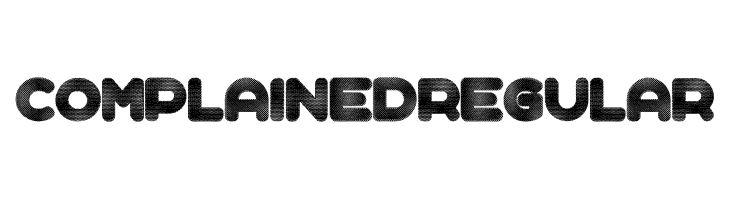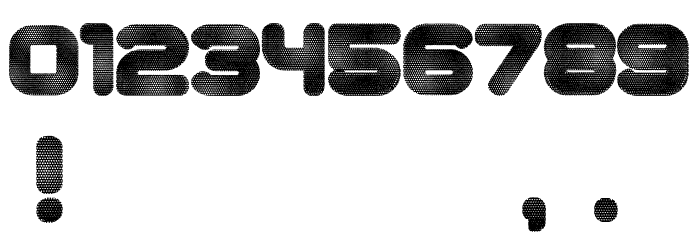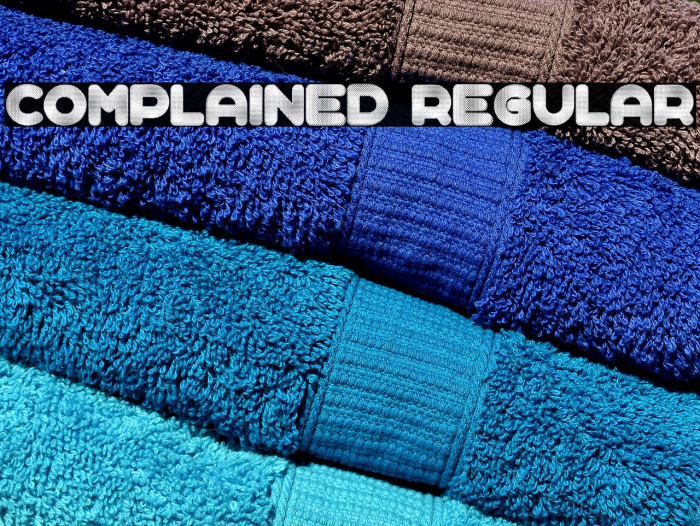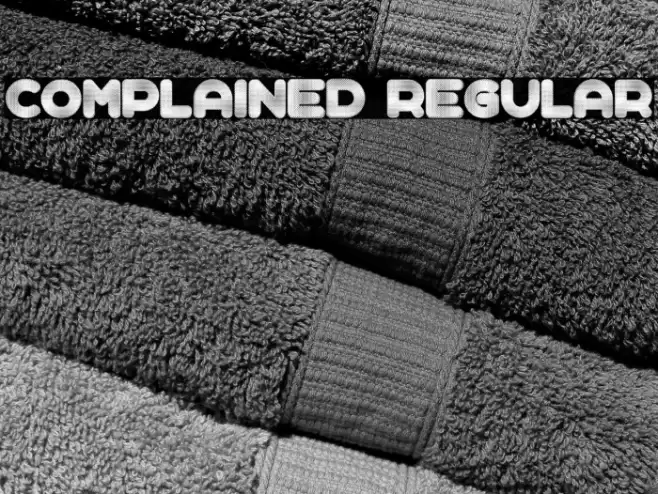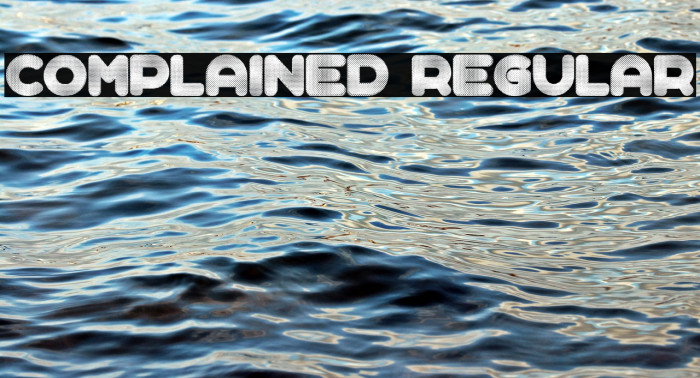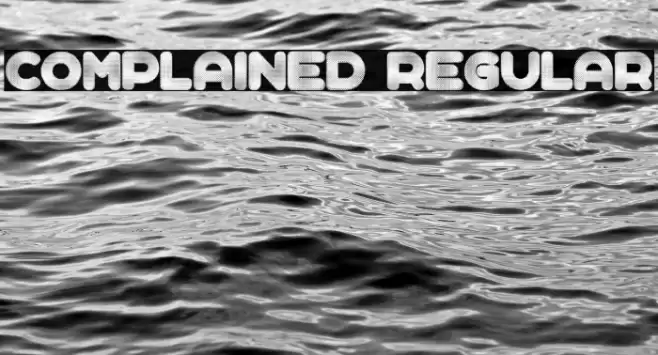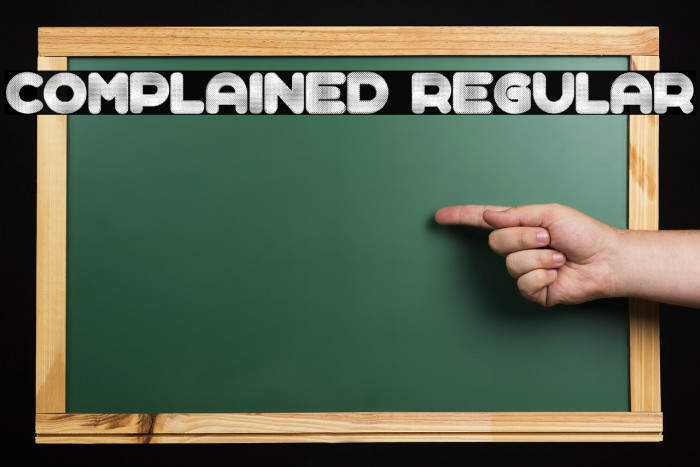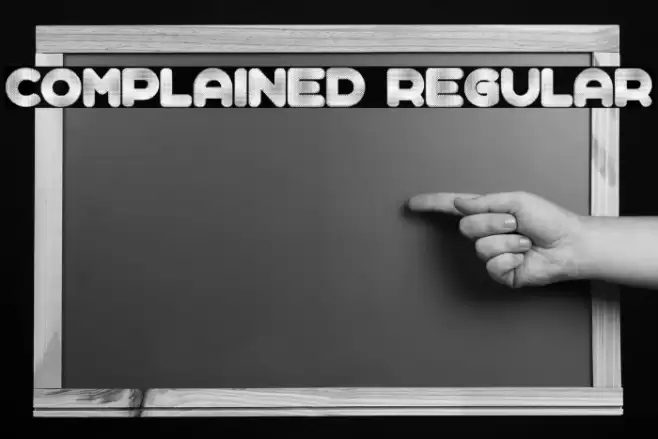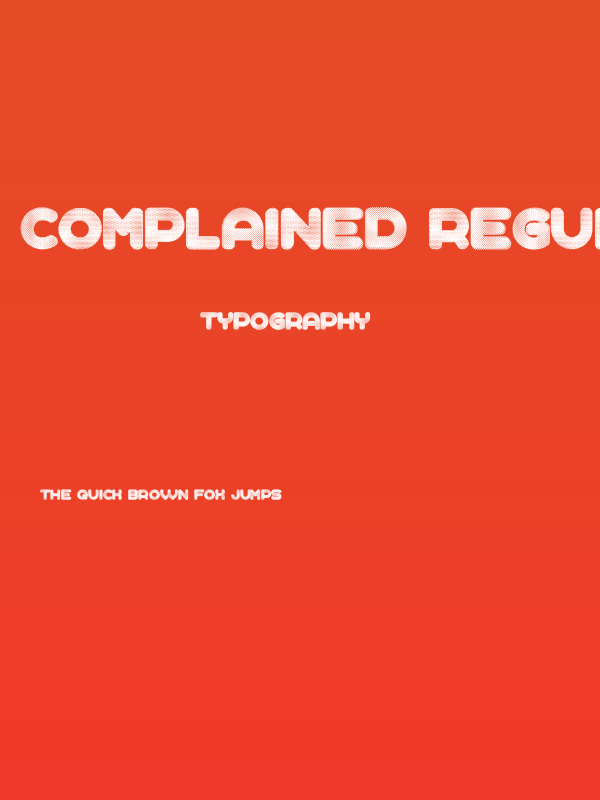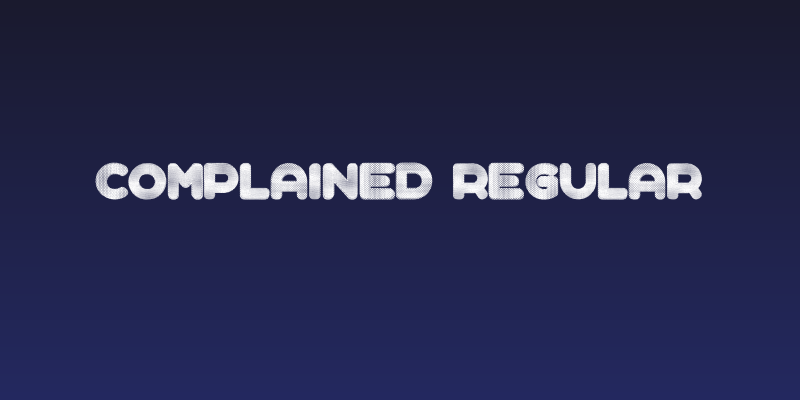
Complained Regular Font
Complained Regular Description
This font features a bold, rounded style with a unique halftone texture that gives it a retro, comic book-like appearance. The characters are uniformly thick, creating a strong visual impact. The rounded edges and consistent stroke width contribute to a friendly and approachable feel. The halftone pattern adds depth and texture, making it stand out in digital and print media. This font is particularly eye-catching and is designed to grab attention with its playful yet structured form. It maintains a consistent alignment and spacing, ensuring readability while offering a distinctive aesthetic.
| Overall Style | Retro, Playful |
| Proposed Projects | Ideal for comic books, retro-themed posters, playful branding, and eye-catching headlines. |